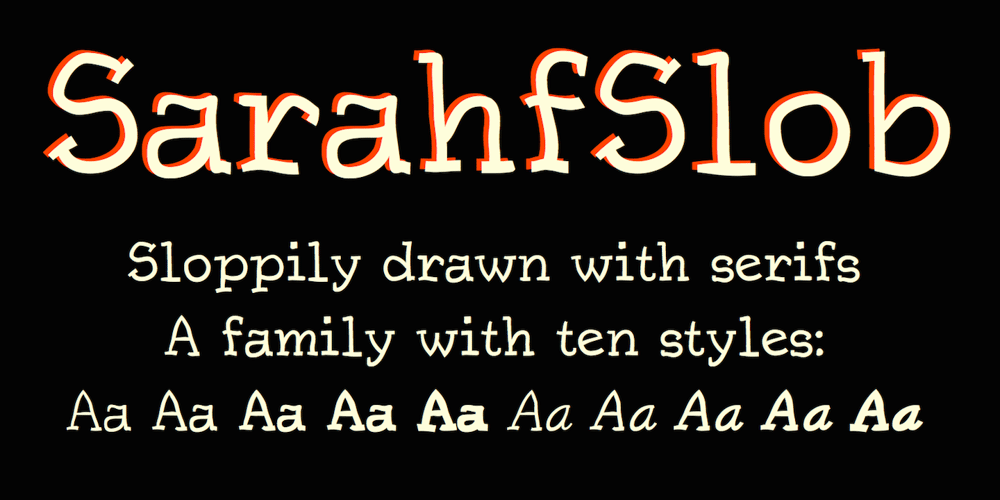
SarahfSlob
SarahfSlob font
SarahfSlob Font Family was designed by Robert Schenk and published by Ingrimayne Type. SarahfSlob contains 10 styles and family package options. SarahfSlob is a crudely drawn, serifed typeface that abhors straight lines and smooth curves. It comes in five weights and ten styles. It is very legible and is suitable when a funny, informal font is desired.